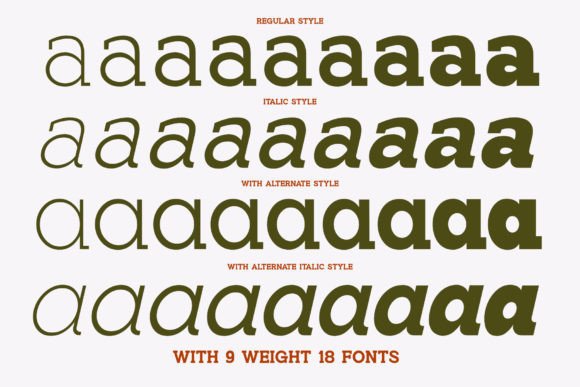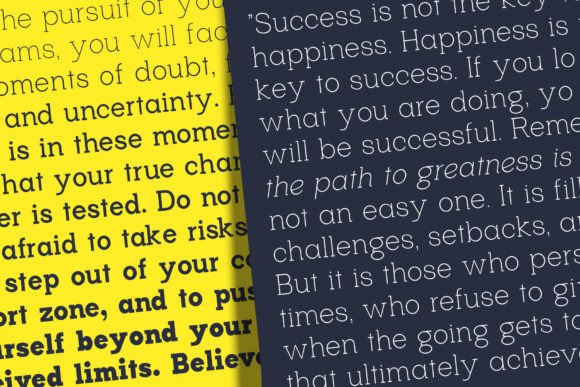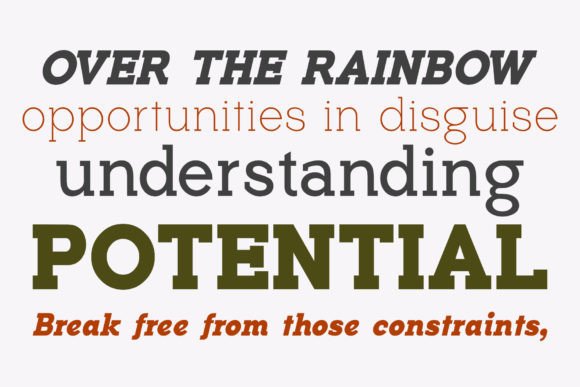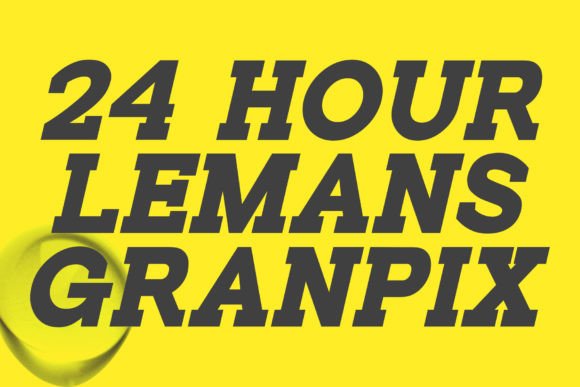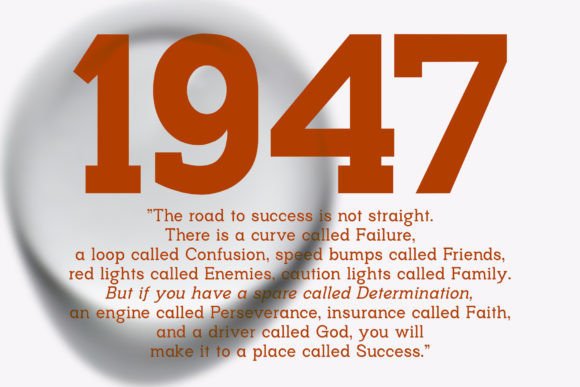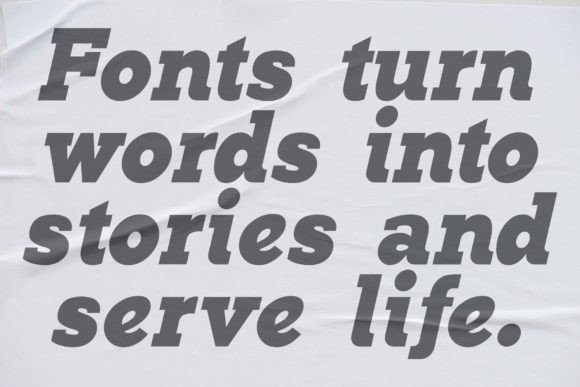
Introduction to Logud Font
Logud is designed for branding.
The initial characters are bold and chunky, yet the thin strokes and flowing italics give it a versatile and unique family set The glyphs are crafted with low-contrast strokes, short ascenders and descenders, and small caps.
Key Features of Logud Font